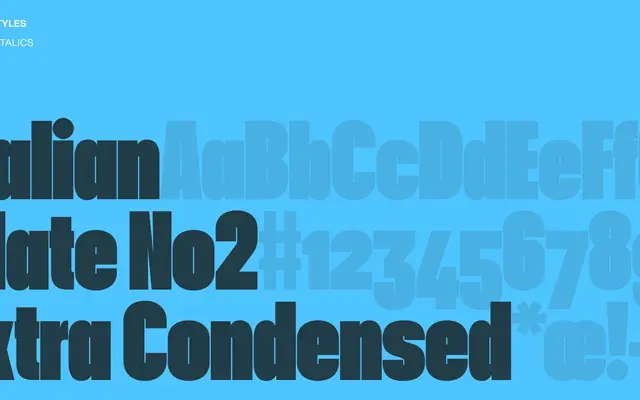
Italian Plate No2 Extra Condensed
Italian Plate No2 Extra Condensed specimen from Playtype
An extra-condensed display grotesque from Playtype drawn from Italian plate lettering traditions.
Italian Plate No2 Extra Condensed is a display-weight grotesque that draws on the compressed letterforms found in Italian metal plate typography. The extreme width makes it suited to headlines, posters and editorial contexts where vertical space is limited. Part of the wider Italian Plate No2 family, which spans multiple width variants.
The name and condensed/expanded classification suggest a grotesque or neo-grotesque style typical of Italian plate lettering traditions, with extreme width variants characteristic of display-oriented sans-serifs.
Extra Condensed